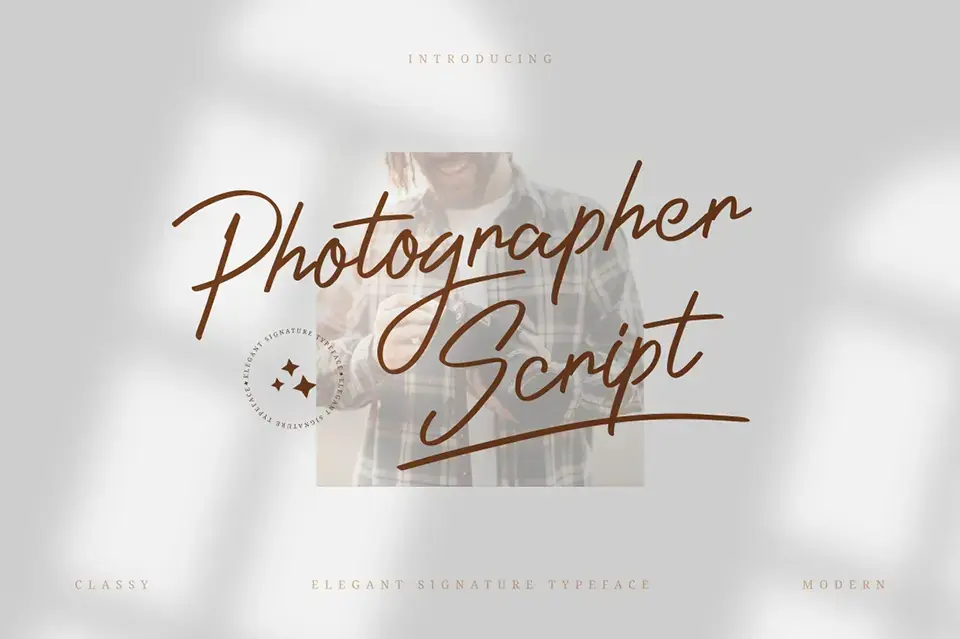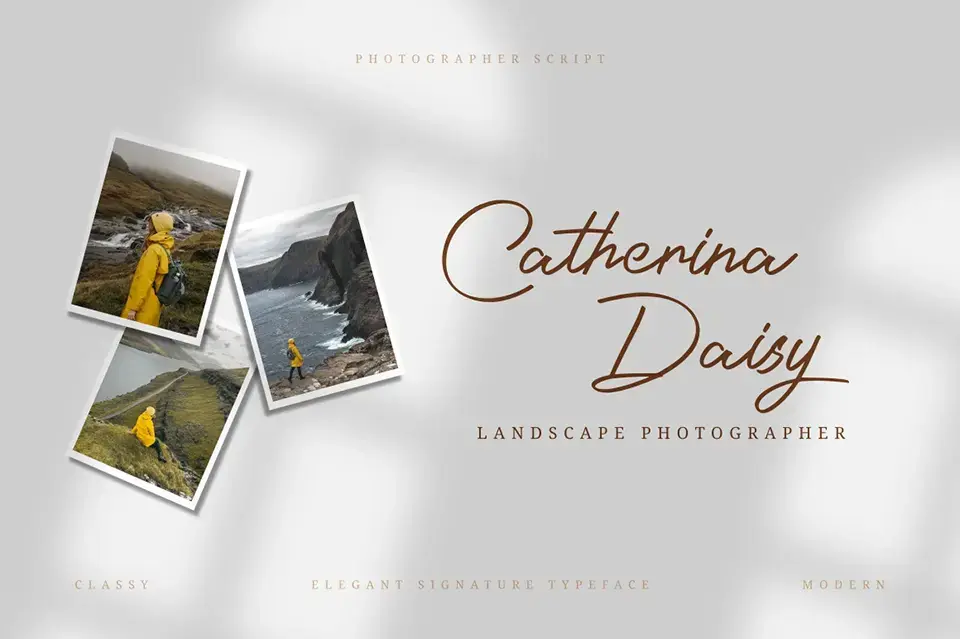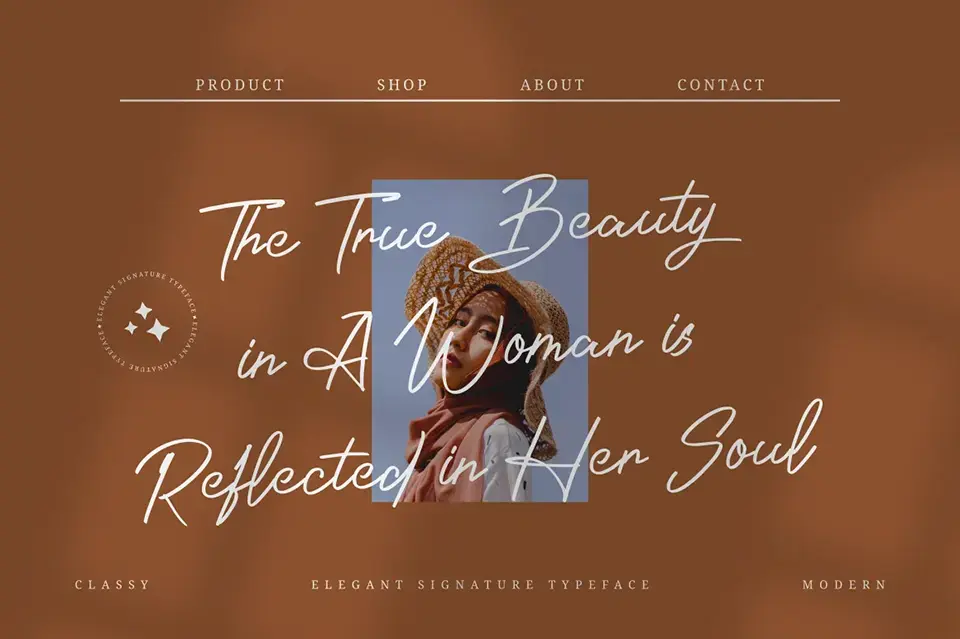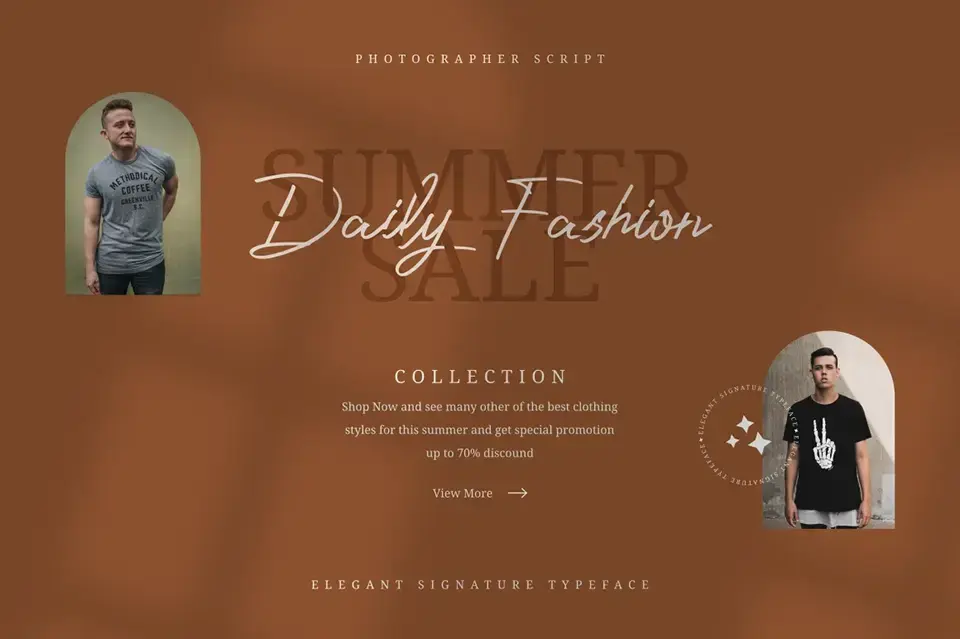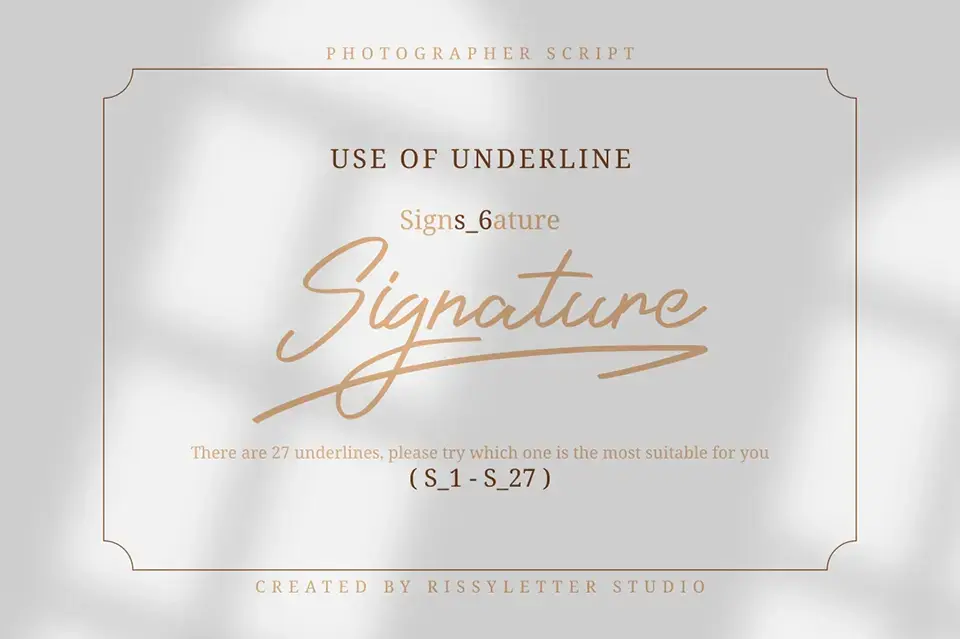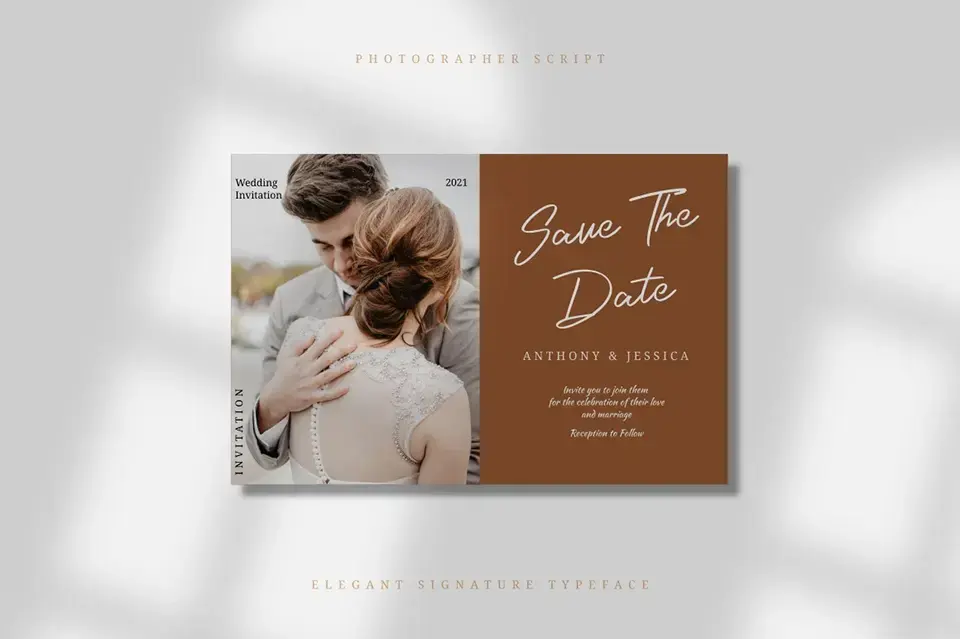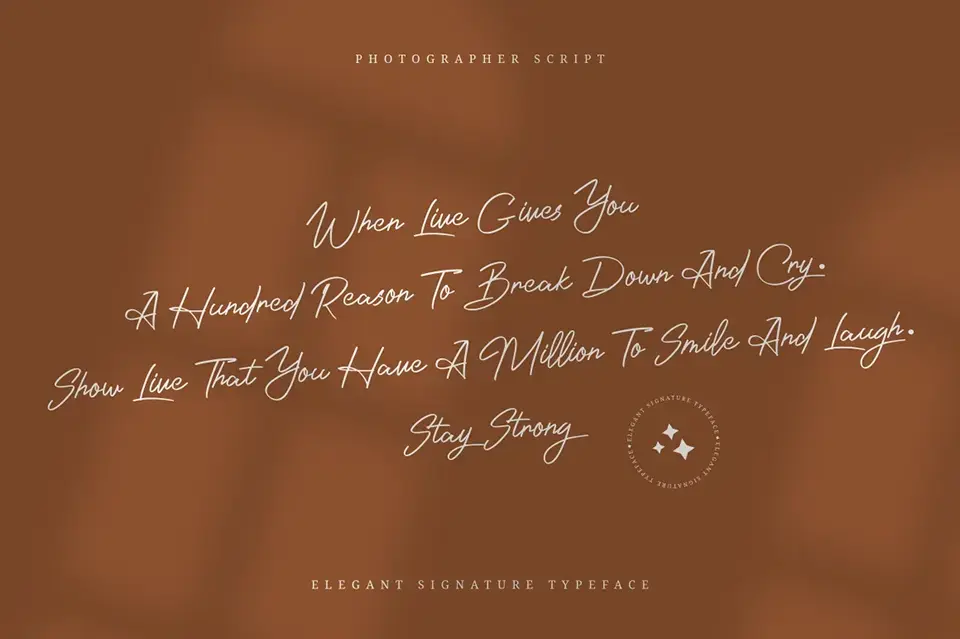
Photographer Script Font
Photographer Script Font is a graceful handwritten typeface crafted by Rissyletter Studio. Featuring sweeping strokes and calligraphic influences, it beautifully mimics a natural, artistic autograph. The flowing curves and deliberate spacing provide a refined, highly personalized aesthetic. [fontshmonts](https://www.fontshmonts.com/display-fonts/photographer-script/)
This typeface performs exceptionally well where an intimate, human touch is essential, such as photography watermarks, boutique brand identities, and event stationery. While it stands out beautifully as a focal point, it struggles with dense paragraphs, editorial layouts, or small-scale interfaces where high legibility is critical. For designers seeking a sophisticated, free-flowing look to anchor a visual identity, this font offers a seamless blend of modern charm and timeless artistry.
Photography watermarks and personalized signatures
High-end boutique branding and logo design
Elegant wedding invitations and luxury stationery
Sophisticated social media graphics
Lengthy body text or editorial paragraphs
Small UI elements requiring high legibility
Corporate or highly formal legal documents
Perfect for branding, logo, and signature, with a artistic and calligraphy style.